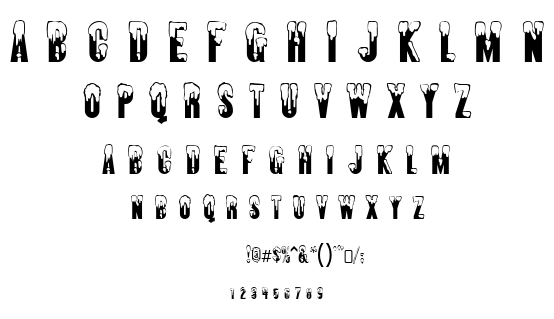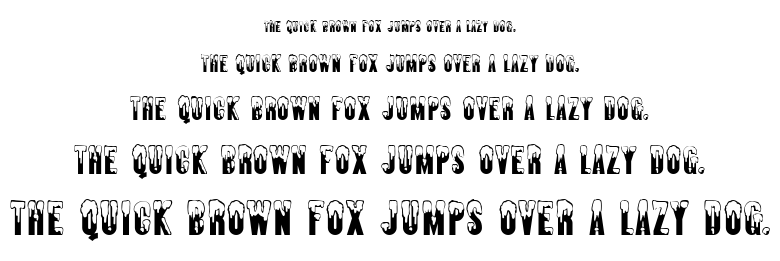
Like a transdimensional goat, Almonte never existed in the real barnyard world. This wooden farm type has never even seen a real chunk of wood which makes it ideally suited for steampunk or other gonzo-historical themes. Almonte is available regular, wood-grain and snow styles. Don’t forget to read the files inside the zip for details. Updated in 2012.